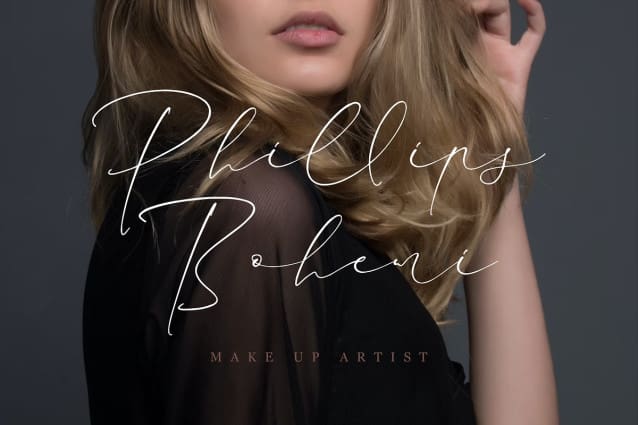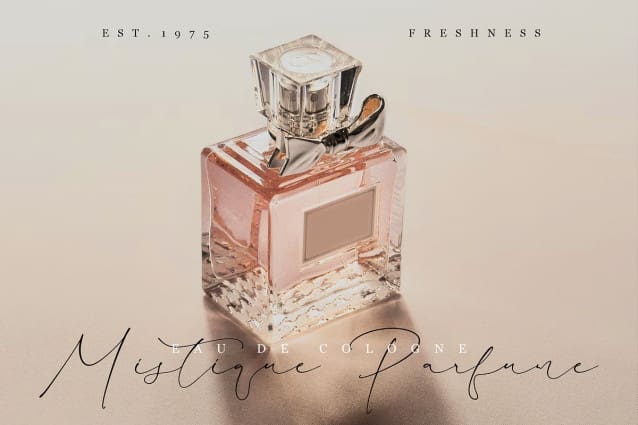
Restillofa Handwritten Font
Restillofa Handwritten Font – Modern Script Font , created by Storytype, A luxury script that has own unique style & modern look. This typeface is perfect for an elegant & luxury logo, book or movie title design, fashion brand, magazine, clothes, lettering, quotes, and so much more.